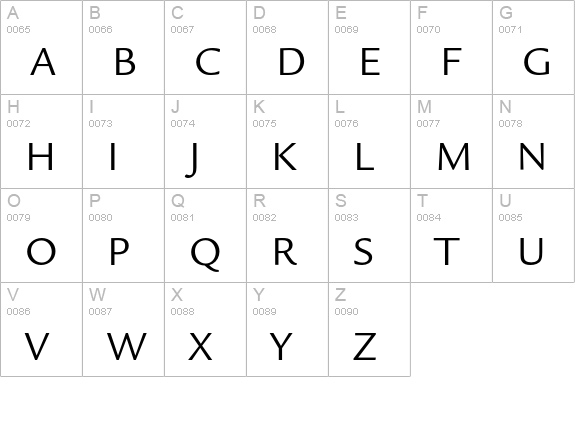
LegacySansEF-Book Font Details
LegacySansEF-Book is a comfortable, highly readable variant in the LegacySansEF typeface family \xE2\x80\x94 well suited to long-form body text, articles, and editorial content.
Introducing LegacySansEF-Book, a stunning and versatile font that exudes timeless elegance and sophistication. Crafted with meticulous attention to detail, this typeface offers a perfect balance between classic and contemporary design elements, making it suitable for a wide range of creative projects. With its clean lines and well-defined letterforms, LegacySansEF-Book effortlessly captures attention and delivers a clear and concise message. Its sleek and modern appearance lends itself beautifully to various applications, including branding, advertising, editorial design, and more. One of the most remarkable aspects of LegacySansEF-Book is that it is freely available to download at FontsMarket.com. This means that designers, creatives, and typography enthusiasts can access this exceptional font without any cost, making it a valuable asset for both personal and commercial projects. Whether you're designing a logo, creating a website, or working on a print publication, LegacySansEF-Book offers the versatility and visual appeal that will set your work apart. Its wide range of weights and styles allows for seamless integration into any design concept, while its legibility ensures effortless readability in both large and small sizes. Embrace the elegance and timelessness of LegacySansEF-Book, and unleash your creativity with this incredible font that is freely available for download at FontsMarket.com. Elevate your designs, captivate your audience, and make a lasting impression with this exceptional typeface that embodies the perfect balance between tradition and innovation.